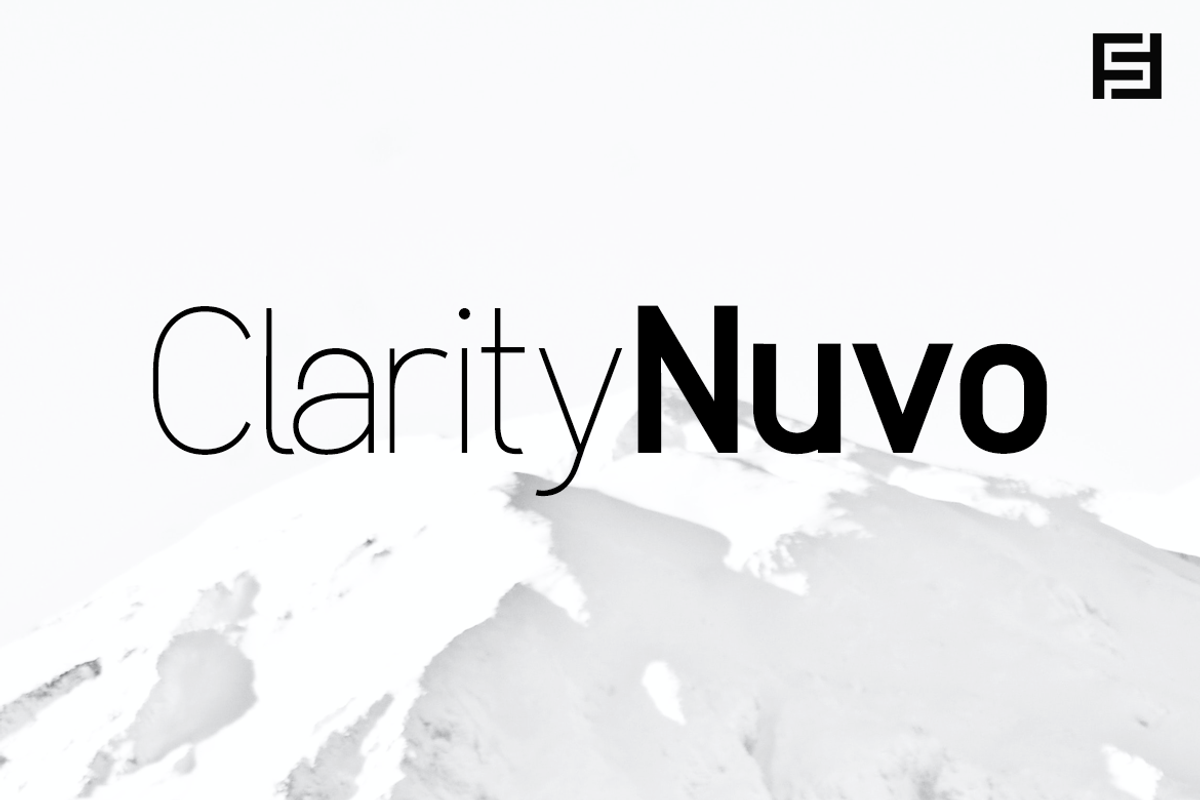
Clarity Nuvo - Clean Modern Typeface Free Download
Clarity Nuvo – Clean Modern Typeface Free Download
Minimalist, crisp, and effortlessly stylish, Clarity Nuvo – Clean Modern Typeface Free Download is a versatile sans-serif font designed for clean, professional design work. Ideal for branding, UI/UX, web design, editorial layouts, presentations, and modern packaging, this typeface brings a refined clarity to every letterform.
With its balanced spacing, sleek lines, and geometric influence, Clarity Nuvo offers excellent readability across both large headlines and small text. It’s a perfect fit for creatives who value simplicity and elegance without sacrificing personality.